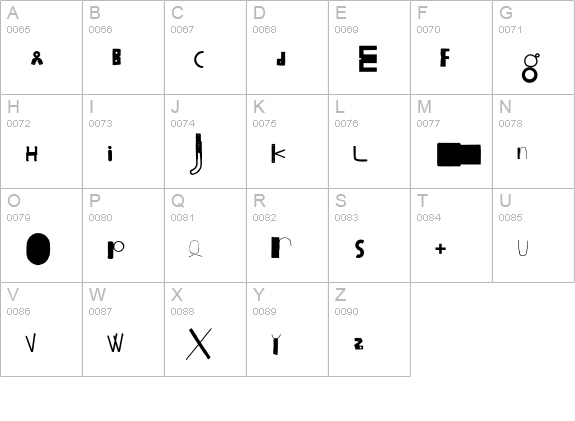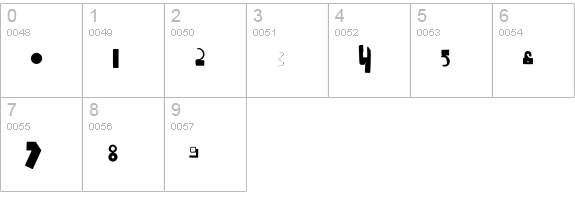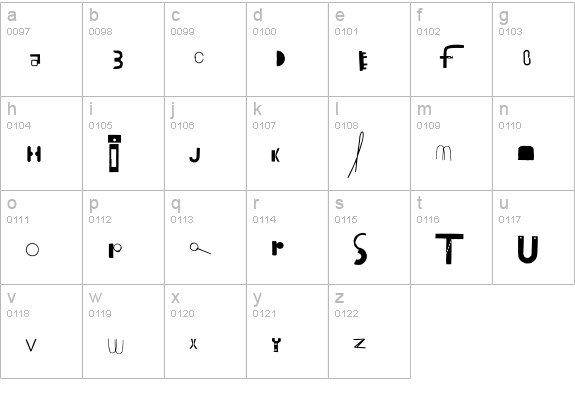
The Bits font is a modern and stylish typeface that will add a touch of sophistication to any design project. With its clean lines and sharp edges, Bits exudes a sense of professionalism and elegance. This versatile font is perfect for a wide range of applications, from branding and logo design to editorial layouts and web design. What makes Bits font even more appealing is that it is available for free download at FontsMarket.com. This means that you can access this high-quality font without having to spend a dime. Whether you are a graphic designer looking to add a fresh new font to your collection or a business owner in need of a sleek and professional typeface for your marketing materials, Bits font is the perfect choice. Download it today and elevate your projects with this stunning font.